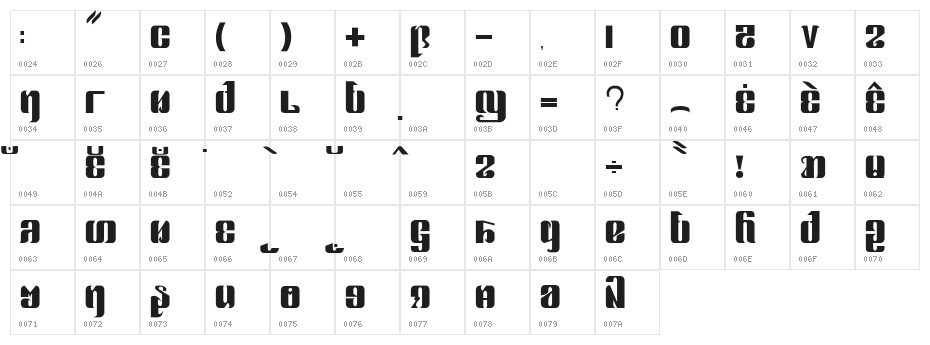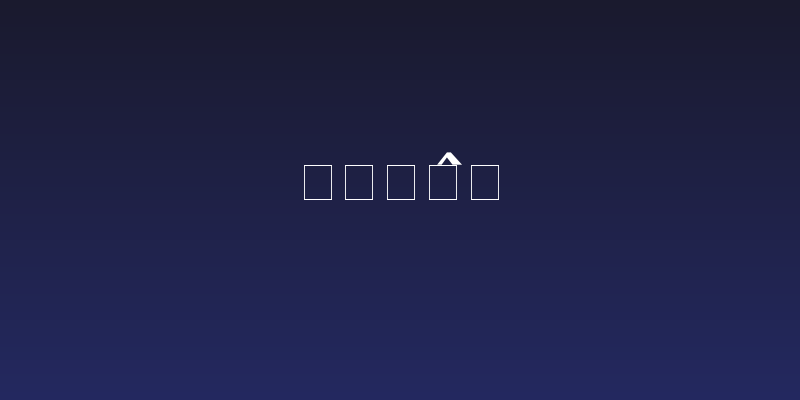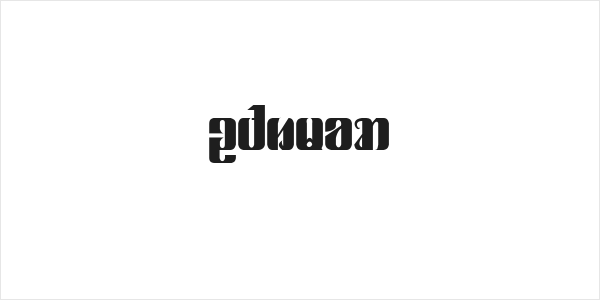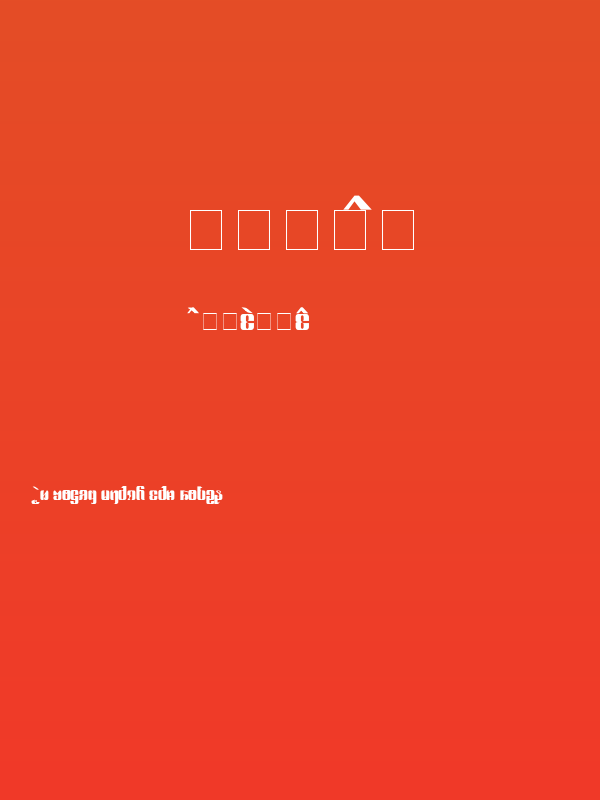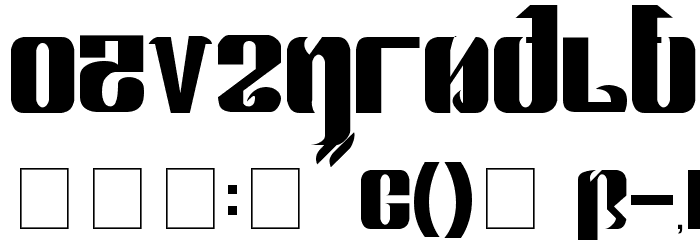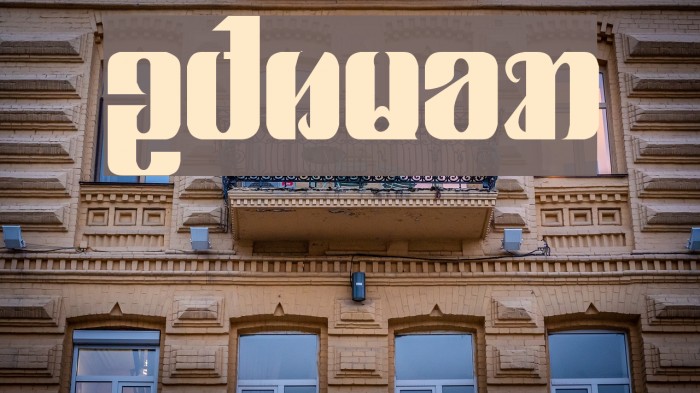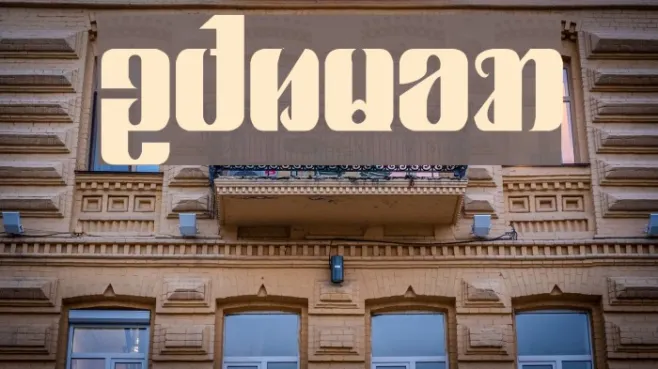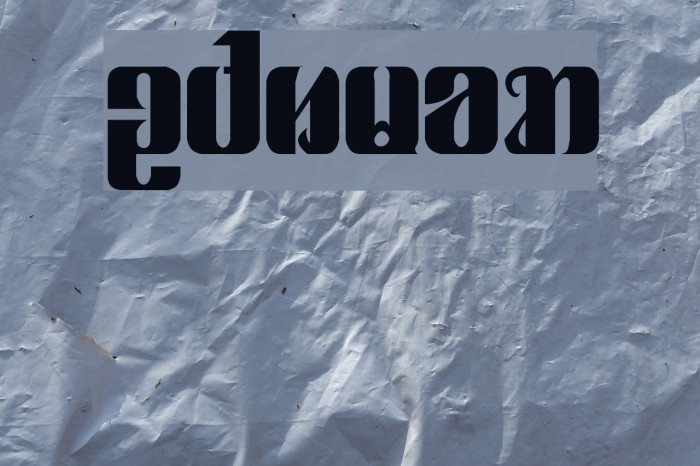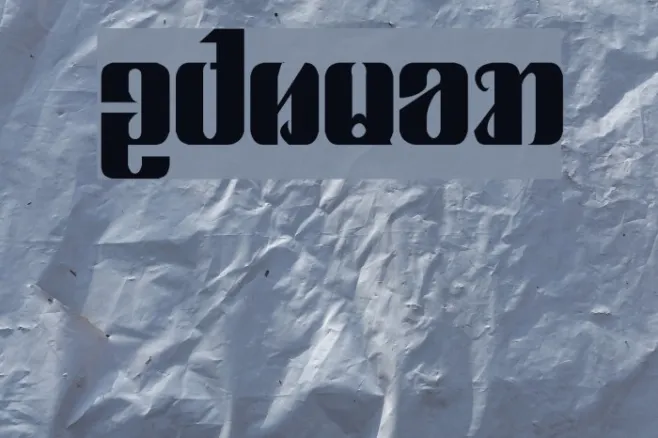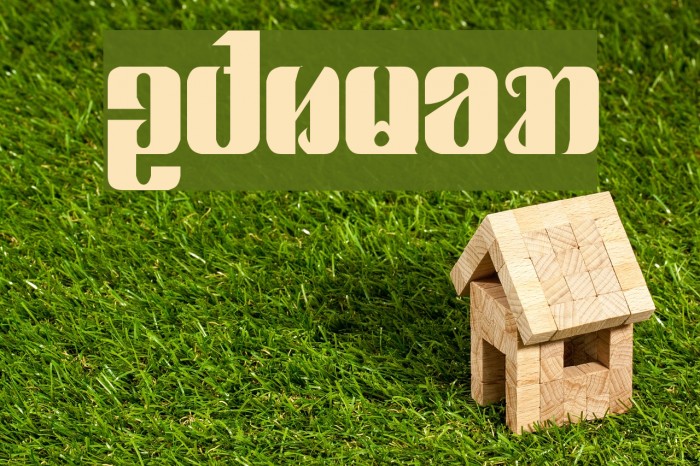
poebya Font
poebya Description
This font features a bold and striking design, characterized by thick, heavy strokes and a strong presence. The letters are highly stylized with unique, angular shapes that give it a modern and edgy appearance. The uppercase and lowercase letters maintain a consistent weight, creating a cohesive look across the alphabet. The numbers and special characters are also designed with the same boldness, ensuring uniformity throughout. This font's distinct style makes it ideal for attention-grabbing headlines and impactful logos.
| Proposed Projects | Ideal for branding projects, poster designs, and any creative work that requires a strong visual impact. |